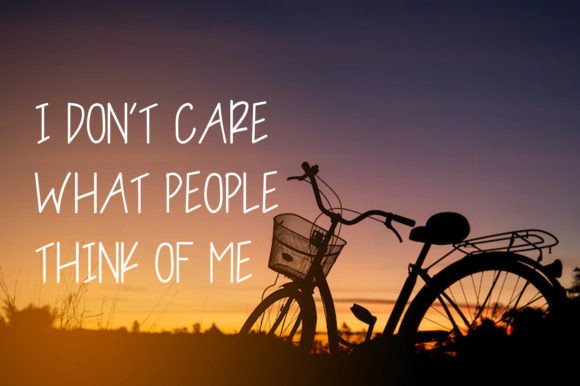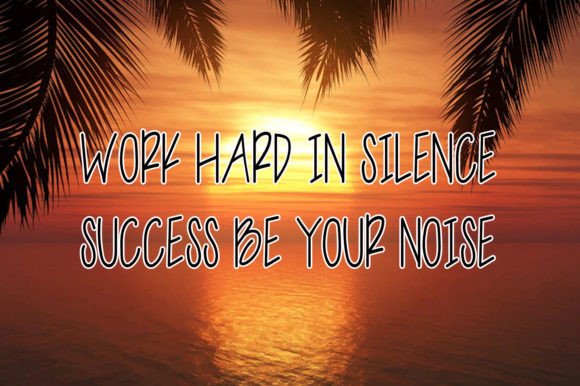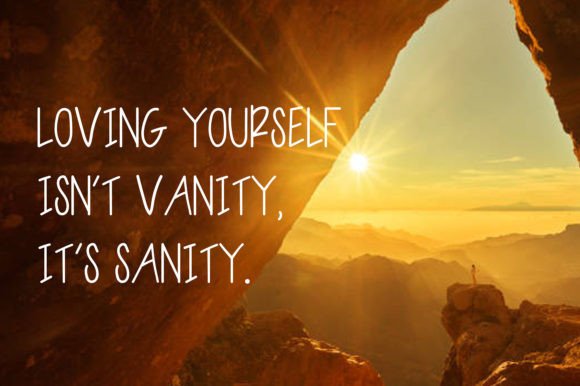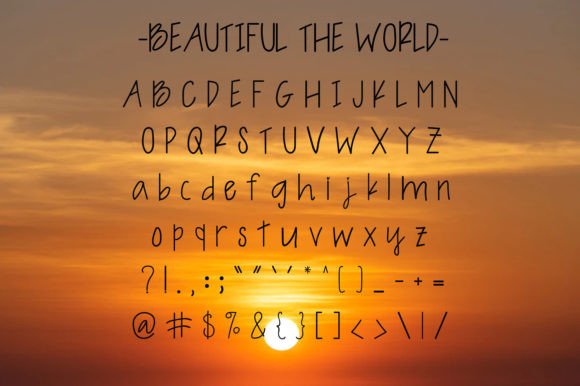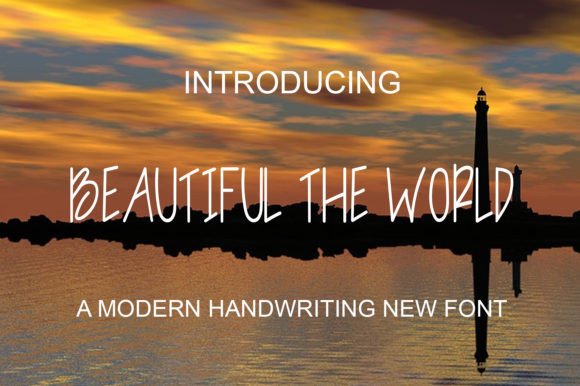
Discover the Charm of Beautiful The World Font: A Cute and Friendly Handwritten Display Font
Are you tired of using the same old fonts for your designs and crafts? Look no further! Beautiful The World Font is a delightful handwritten display font that is sure to capture your heart. Its cute and friendly vibe makes it perfect for a wide range of projects, from digital designs and presentations to crafts and greeting cards.
What Makes Beautiful The World Font So Special?
Beautiful The World Font is more than just a font – it’s an expression of creativity and friendliness. Its handwritten style gives it a personal touch that is hard to find in digital fonts. The font’s unique characteristics make it stand out from the crowd, and its versatility ensures that it can be used for various projects.
Perfect for Crafts and Digital Design
Whether you’re a crafter, a digital designer, or both, Beautiful The World Font is an excellent addition to your toolkit. Its playful and whimsical nature makes it ideal for:
- Crafting projects, such as scrapbooking, card making, and journaling
- Digital designs, including social media graphics, blog posts, and website headers
- Presentations, such as slideshows and video scripts
- Greeting cards, invitations, and other paper crafts
Why Beautiful The World Font Will Become Your Go-To Font
So, what makes Beautiful The World Font so special that it has the potential to become your favorite go-to font? Here are a few reasons:
- Easy to read: Despite its handwritten style, Beautiful The World Font is surprisingly easy to read, making it perfect for both digital and print projects.
- Versatile: This font can be used for a wide range of projects, from formal to informal, and from digital to print.
- Unique: Beautiful The World Font has a distinct personality that will set your designs apart from the crowd.
- Fun: Let’s face it – this font is just plain fun! It’s perfect for projects that require a playful touch.
Tips for Using Beautiful The World Font
Now that you’re excited about Beautiful The World Font, here are some tips for using it effectively:
- Pair it with other fonts: Beautiful The World Font pairs well with clean sans-serif fonts, such as Arial or Helvetica.
- Experiment with colors: This font looks great in a variety of colors, from bright and bold to soft and pastel.
- Use it for headings: Beautiful The World Font is perfect for headings and titles, but can also be used for body text in smaller sizes.
- Don’t be afraid to get creative: This font is perfect for experimenting with different styles, such as adding flourishes or swashes.
In conclusion, Beautiful The World Font is a charming handwritten display font that is sure to capture your heart. Its cute and friendly vibe makes it perfect for a wide range of projects, from digital designs and presentations to crafts and greeting cards. With its versatility, uniqueness, and ease of use, it’s no wonder that Beautiful The World Font has the potential to become your favorite go-to font.